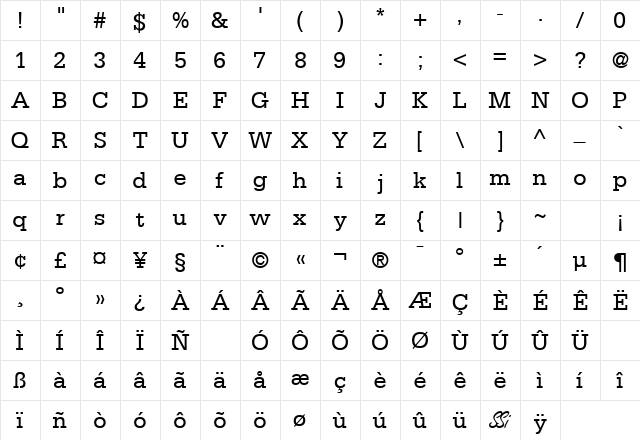
CentricSSK Regular Free Font
CentricSSK Regular
CentricSSK Family
Complete CentricSSK Regular glyph index. Displaying only characters natively supported by CentricSSK Regular font.
Design Context for CentricSSK
CentricSSK is a composed and adaptable typeface that performs quietly and consistently across a wide range of design contexts.